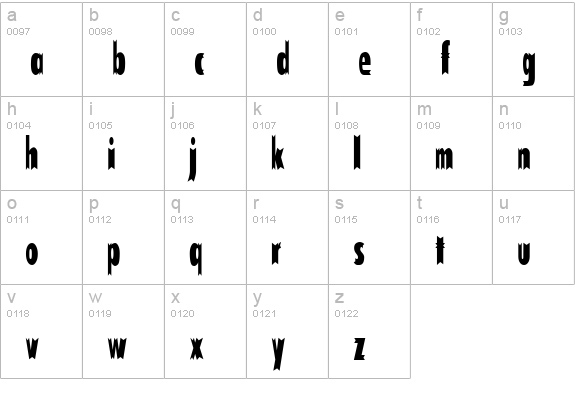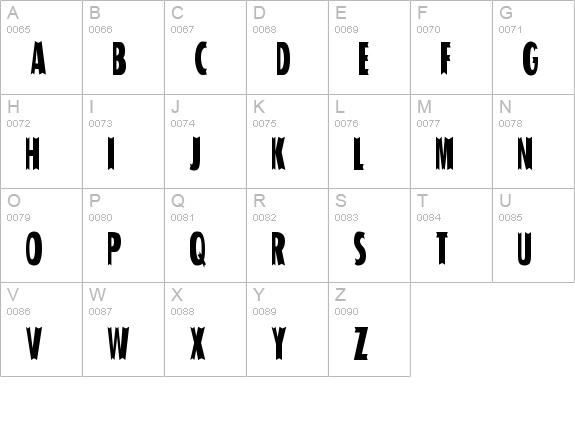
Tofu Condensed Font Details
Tofu Condensed is a distinctive, condensed-width variant in the Tofu typeface family \xE2\x80\x94 well suited to design and typography projects.
Introducing Tofu Condensed, a versatile and modern typeface that adds a touch of sophistication to any design project. This font is perfect for headlines, logos, posters, and more, with its clean lines and condensed letterforms that make a bold statement. Tofu Condensed exudes a sense of elegance and professionalism, making it suitable for a wide range of applications. Whether you're designing a sleek corporate brochure or creating eye-catching social media graphics, this font will elevate your work to the next level. Not only does Tofu Condensed offer exceptional aesthetics, but it also provides incredible legibility, ensuring that your message is easily conveyed to your audience. The precise spacing and carefully crafted letterforms guarantee a seamless reading experience, making Tofu Condensed a reliable choice for both print and digital projects. What's more, this remarkable font is available for free download at FontsMarket.com, making it accessible to designers of all skill levels. Whether you're a seasoned professional or a hobbyist looking to enhance your creations, Tofu Condensed is here to empower your design journey without breaking the bank. So why wait? Give your designs a fresh and contemporary look with Tofu Condensed. Download it for free at FontsMarket.com and unlock a world of creative possibilities.